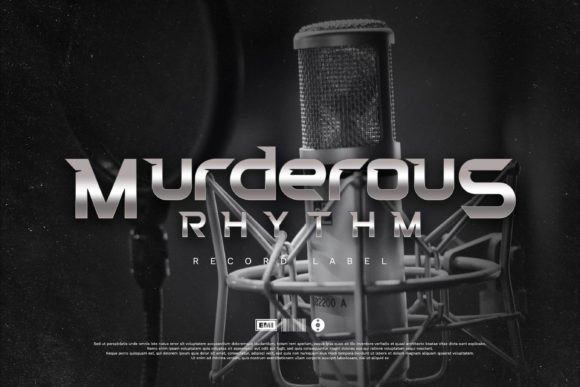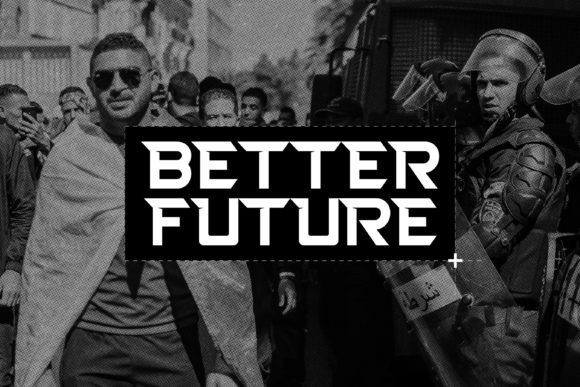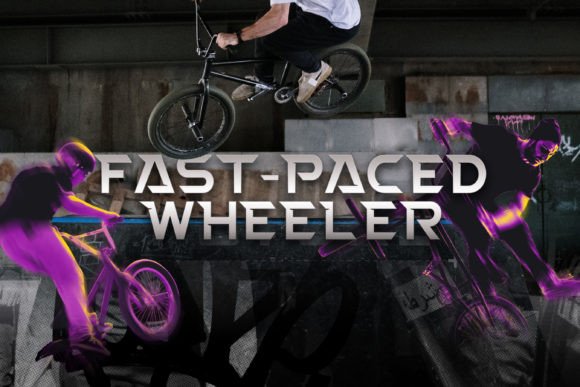
Forenight Font
Forenight is a dynamic and modern sport font designed to capture the spirit of athleticism and energy. With its bold and sleek letterforms, Forenight brings a sense of power and movement to your sports-related designs. Inspired by the speed and intensity of athletic events, this font is perfect for sports team logos, jerseys, posters, and any design that aims to convey a sense of strength and competitiveness.